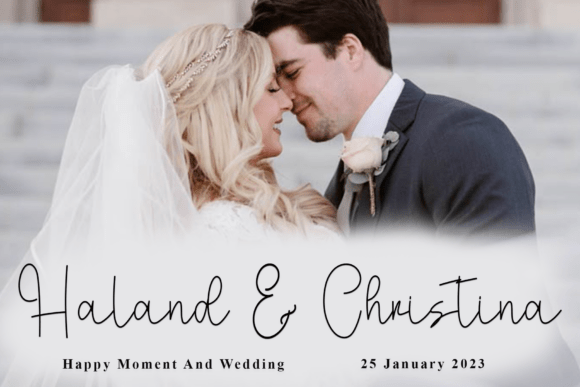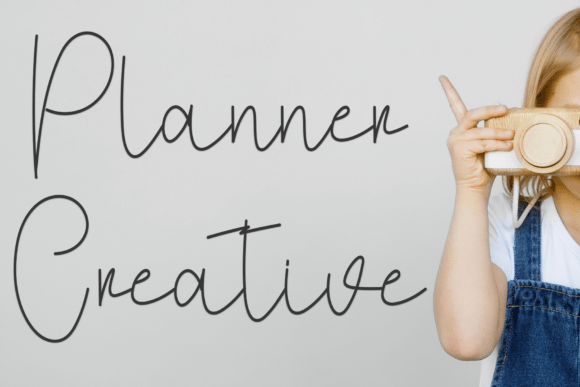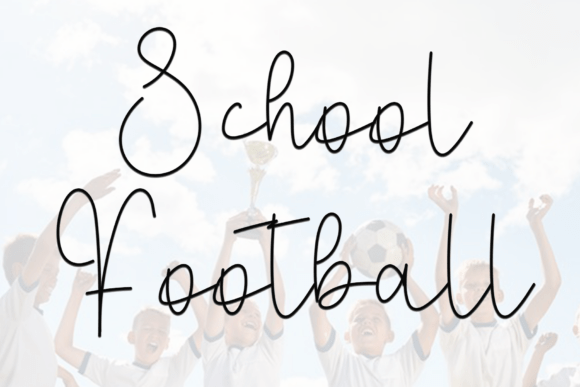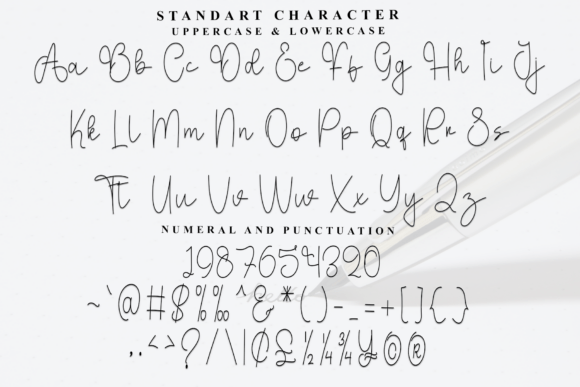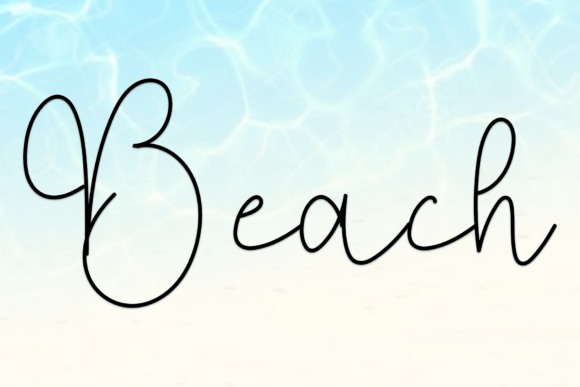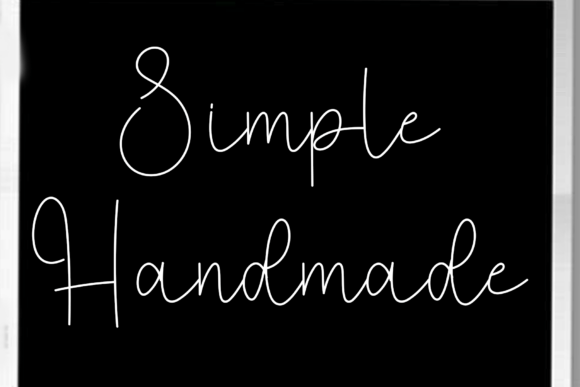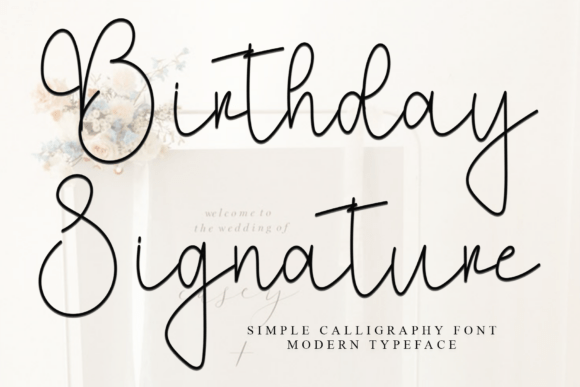
Introducing Birthday Signature Font: Elevate Your Designs with a Touch of Elegance
Are you tired of using the same old fonts for your designs? Look no further! Birthday Signature Font is a stunning, one-of-a-kind typeface that adds a soft, unique touch to any project. Its distinctive strokes and special character make it an ideal choice for designers, crafters, and creative enthusiasts. In this article, we’ll dive into the world of Birthday Signature Font, exploring its features, benefits, and uses.
A Beautiful and Eye-Catching Font
Birthday Signature Font is a beautifully crafted typeface that boasts a soft, elegant look. Its unique design makes it stand out from the crowd, adding a touch of sophistication to any design project. Whether you’re working on a birthday card, invitation, or craft project, this font is sure to impress. The distinctive strokes and special character of Birthday Signature Font give it a personal touch, making it perfect for designs that require a bit of personality.
Versatile and Meaningful
One of the best things about Birthday Signature Font is its versatility. With a wide range of characters, you can use it to create unique and meaningful designs that cater to different tastes and preferences. Whether you’re designing for a specific occasion or creating a brand identity, this font is sure to deliver. Its natural, flowing style makes it perfect for a wide range of products, from paper crafts to digital designs.
Ideal for Design Projects and Crafts
Birthday Signature Font is a dream come true for designers and crafters. Its unique style and versatility make it perfect for a wide range of projects, including:
- Birthday cards and invitations
- Paper crafts and scrapbooking
- Digital designs and graphics
- Branding and identity design
- Stationery and packaging
Enhance Your Designs with Birthday Signature Font
With Birthday Signature Font, you can elevate your designs and make them appealing to a wide range of audiences. Its elegant, sophisticated style is sure to impress, whether you’re designing for a specific occasion or creating a brand identity. The font’s natural, flowing style makes it perfect for designs that require a personal touch.
Tips for Using Birthday Signature Font
Here are some tips for getting the most out of Birthday Signature Font:
- Use it for headlines and titles to add a touch of elegance
- Pair it with other fonts to create a unique and interesting contrast
- Use it for body text to create a flowing, natural look